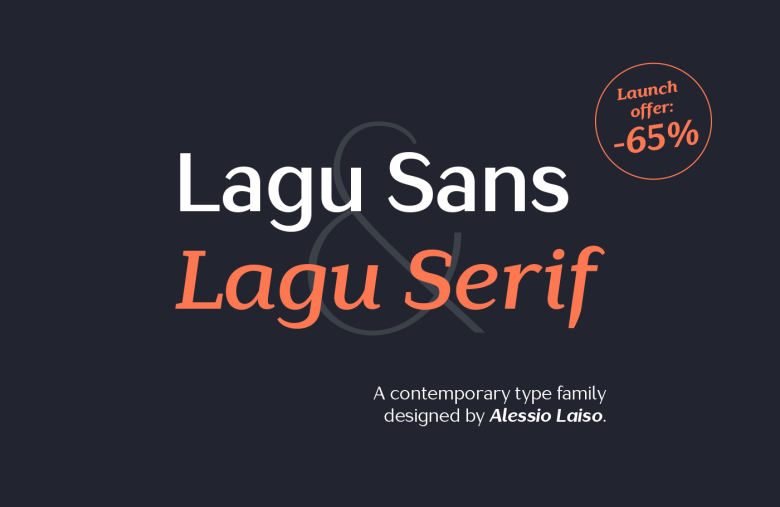
Lagu Sans & Lagu Serif Font
Introducing Lagu Sans & Lagu Serif Font Family. Lagu Sans & Lagu Serif designed by Alessio Laiso. Lagu Serif blends a geometric inspiration with warm humanist elements, making it the perfect choice for when you need a fresh, contemporary serif typeface. Alessio Laiso has designed Lagu Serif in 18 styles: 9 weights ranging from Thin to Black, with matching, beautiful italics. The companion Lagu Sans makes the Lagu family a real workhorse for any use, including web, digital, print, branding and signage.
Lagu Sans is a contemporary typeface that blends a geometric inspiration with a charming contrast between thick and thin strokes. Alessio Laiso has designed Lagu Sans in 18 styles: 9 weights ranging from Thin to Black, with matching, beautiful italics. The companion Lagu Serif makes the Lagu family a real workhorse for any use, including web, digital, print, branding, and signage.